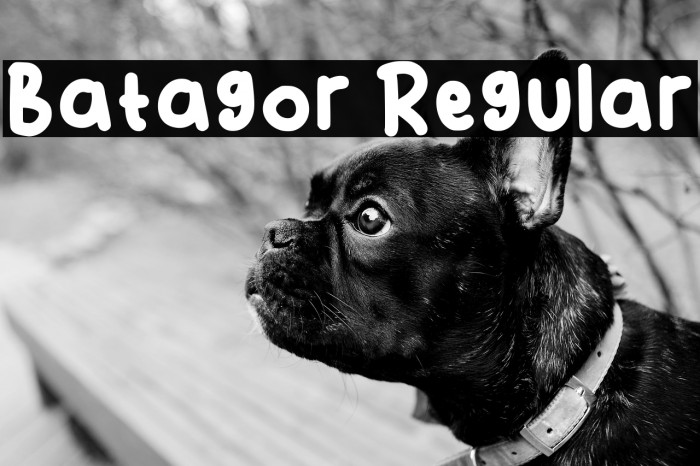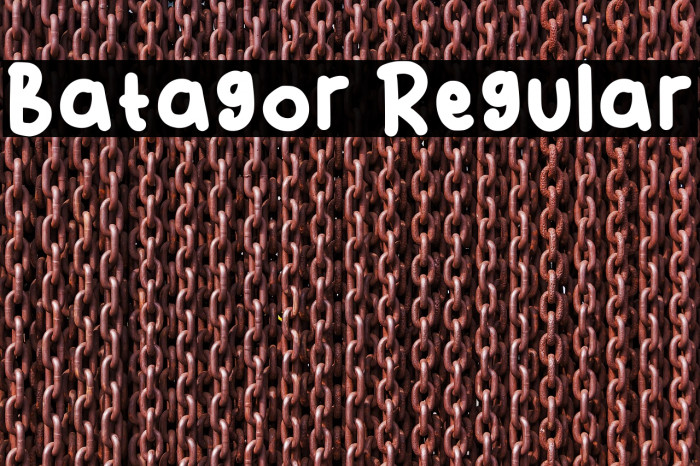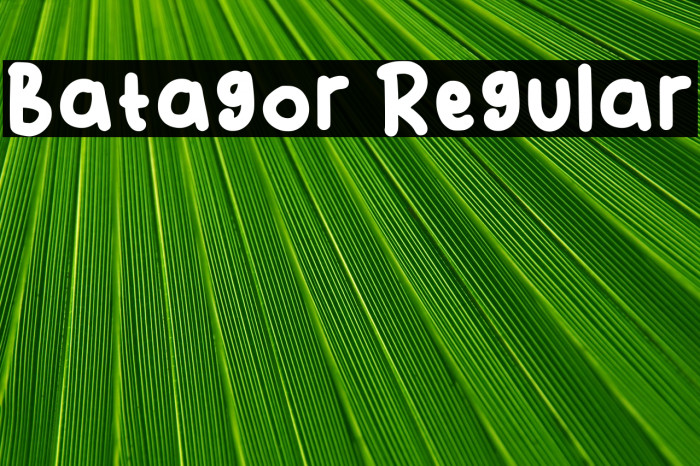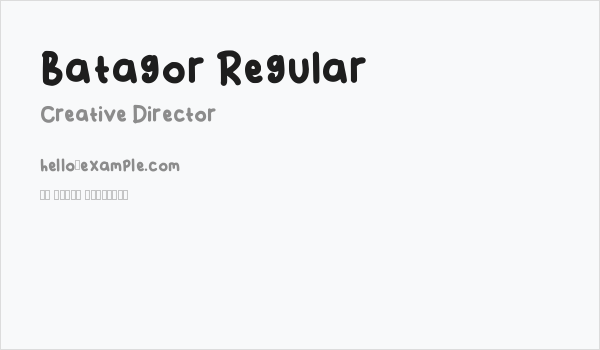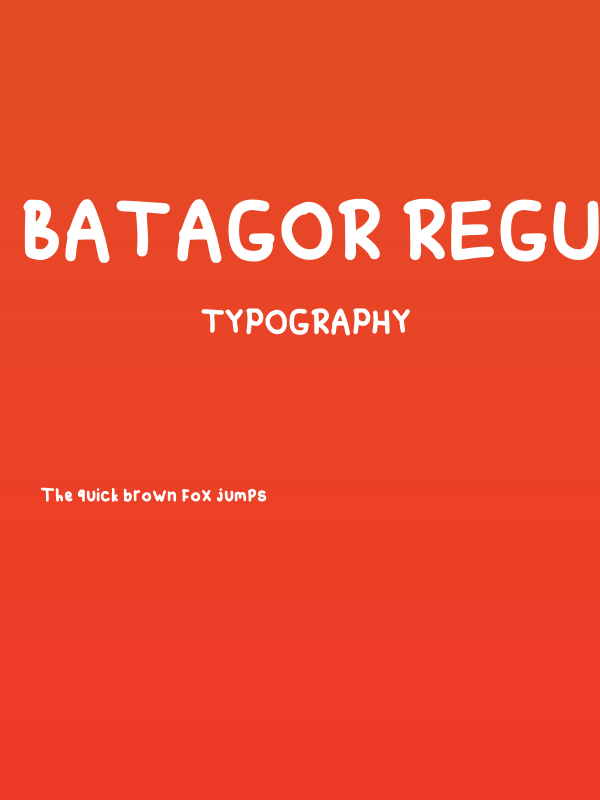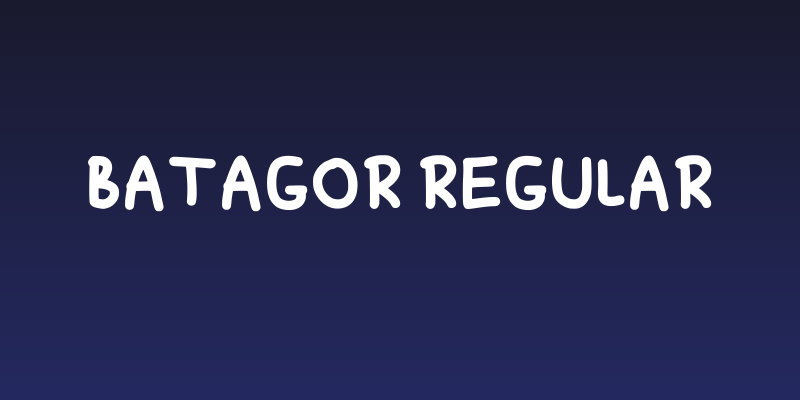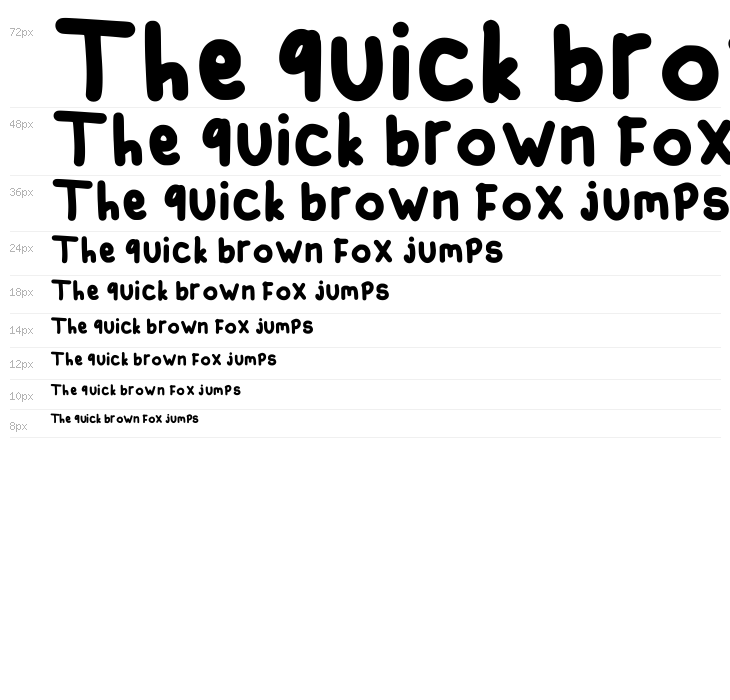
Batagor Regular Font
Batagor Regular Description
A playful, handwritten font with bold, rounded characters and a casual style.
| Proposed Projects | Children's books, casual branding, playful posters. |